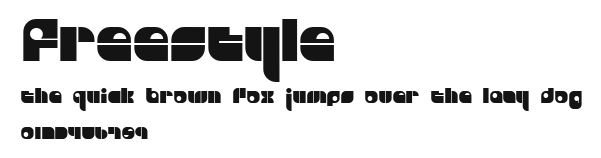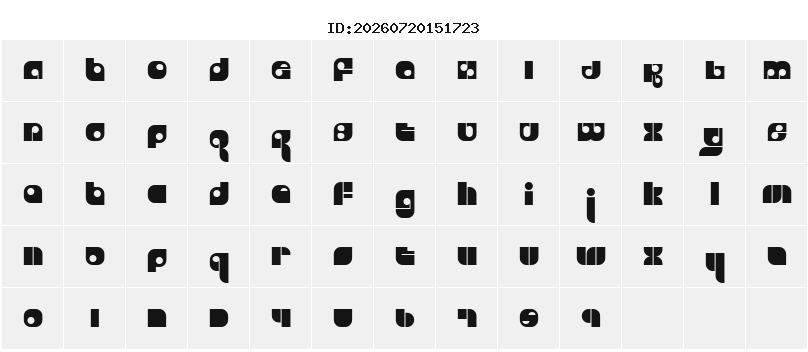
Freestyle Preview
• Font Name: Freestyle
About Freestyle.ttf
Freestyle.ttf is a modern, elegant sans-serif font designed for ultimate readability and visual harmony. Perfect for branding, headlines, web design, and print materials.